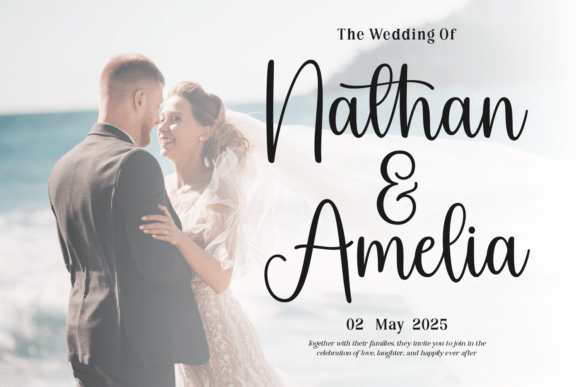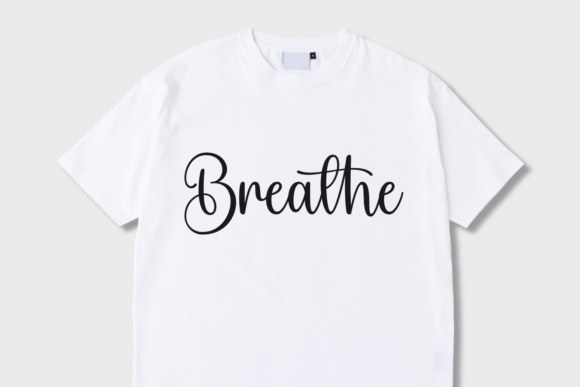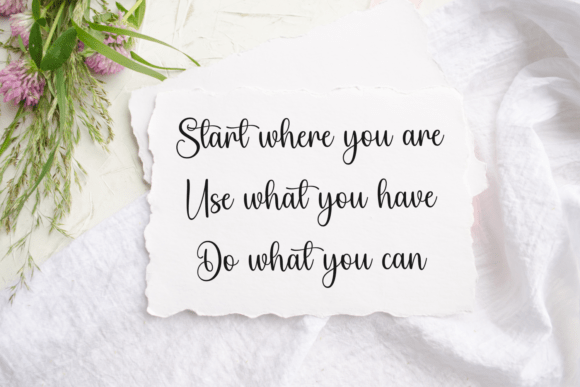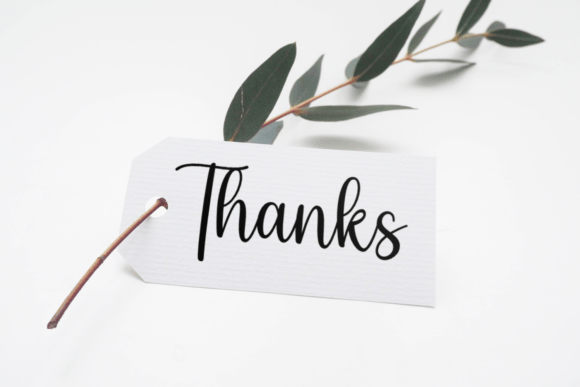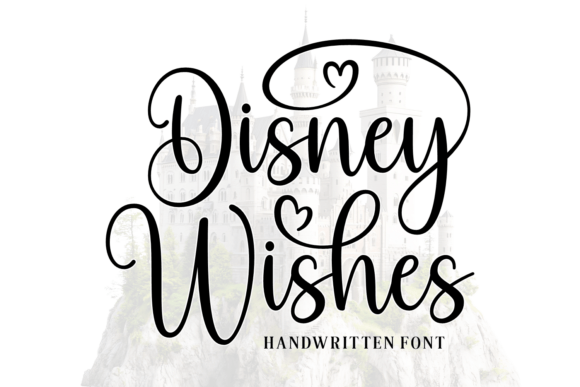
Introducing Disney Wishes Font: A Magical Script Font for Enchanting Creations
Immerse yourself in a world of magic and whimsy with our enchanting Disney Wishes Handwritten Font. This intricately crafted Script Font evokes a timeless elegance with a charming and whimsy twist, making it ideal for fairytale inspired creations. Its romantic and modern calligraphy design creates a dreamy ambiance, perfect for love-themed artworks, wedding invitations, and birthday celebrations.
The Inspiration Behind Disney Wishes Font
The Disney Wishes Font is inspired by the classic Disney movies and fairytales that have captured the hearts of millions. Our team of designers aimed to create a font that would evoke the same sense of wonder and enchantment as the Disney brand. With its intricate details and whimsical touch, this font is sure to transport you and your audience to a world of fantasy and magic.
Key Features of Disney Wishes Font
- Intricately crafted script font: The Disney Wishes Font features intricate details and connections between letters, making it perfect for creating elegant and sophisticated designs.
- Romantic and modern calligraphy design: The font’s romantic and modern calligraphy design creates a dreamy ambiance, perfect for love-themed artworks, wedding invitations, and birthday celebrations.
- Whimsical twist: The Disney Wishes Font has a charming and whimsical twist, making it ideal for fairytale inspired creations and children’s designs.
- Timeless elegance: The font’s classic and elegant design ensures that it will remain timeless and relevant for years to come.
Uses for Disney Wishes Font
The Disney Wishes Font is versatile and can be used for a variety of design projects, including:
- Wedding invitations: The font’s romantic and elegant design makes it perfect for wedding invitations, save-the-date cards, and other wedding-related designs.
- Birthday celebrations: The Disney Wishes Font is ideal for creating birthday invitations, party decorations, and other birthday-themed designs.
- Love-themed artworks: The font’s dreamy and romantic ambiance makes it perfect for creating love-themed artworks, including Valentine’s Day designs and romantic quotes.
- Fairytale inspired creations: The Disney Wishes Font is ideal for creating fairytale inspired designs, including children’s book illustrations, storybook art, and fantasy-themed designs.
Tips for Using Disney Wishes Font
Here are some tips for using the Disney Wishes Font in your designs:
- Pair with complementary fonts: Pair the Disney Wishes Font with complementary fonts to create visual interest and hierarchy in your designs.
- Use in combination with graphics: The Disney Wishes Font looks stunning when used in combination with graphics, illustrations, and other design elements.
- Experiment with colors: The font’s elegant design looks great in a variety of colors, so don’t be afraid to experiment and find the perfect color scheme for your design.
| Font Name | Disney Wishes Font |
| Author | Damai (7NTypes) |
The Disney Wishes Font is a magical script font that is sure to enchant and inspire your designs. With its intricate details, romantic ambiance, and whimsical twist, this font is perfect for creating fairytale inspired creations, love-themed artworks, and elegant designs. Download the Disney Wishes Font today and immerse yourself in a world of magic and whimsy.